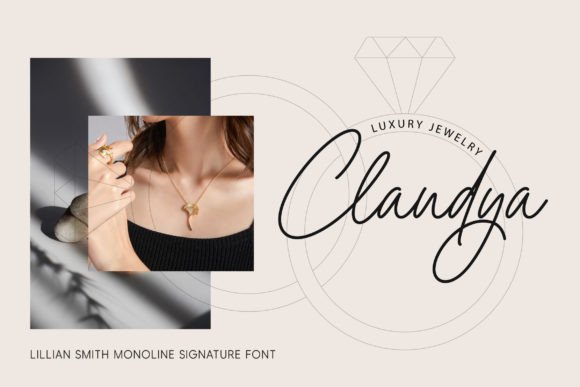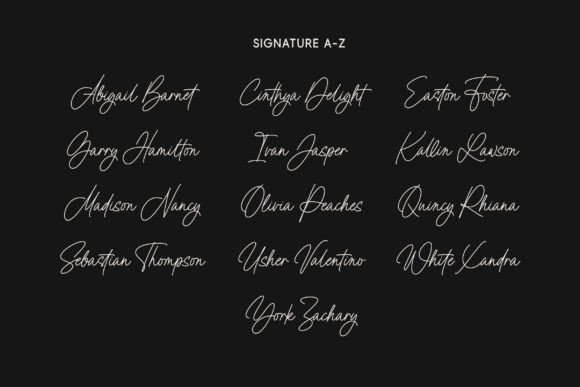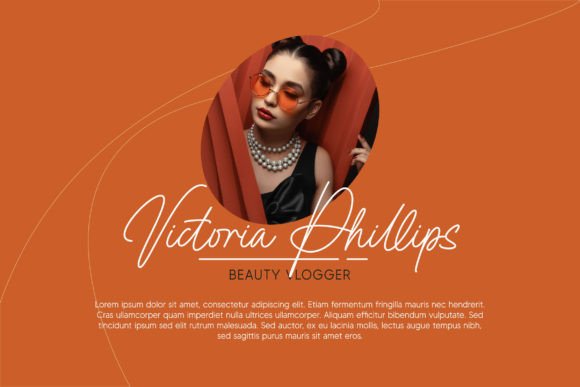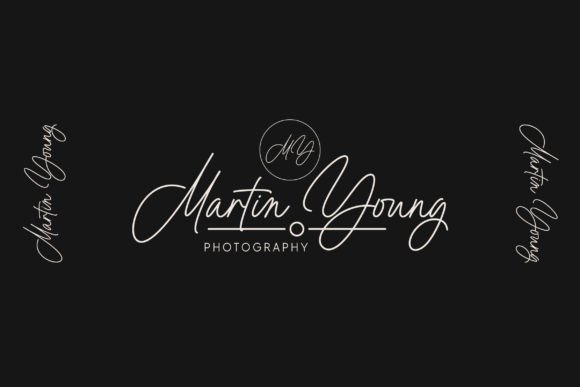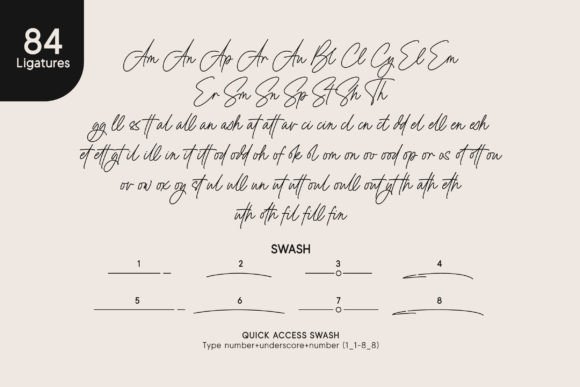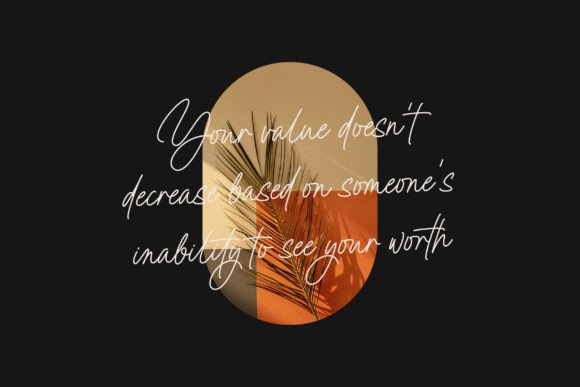
Introduction to Lillian Smith Font
As a designer, there’s nothing quite like the thrill of bringing a creative project to life. It’s the moment when all the elements come together, and you get to see your vision take shape. For me, that moment often starts with the perfect font – one that sets the tone and captures the essence of the project. And that’s where the Lillian Smith Font comes in.
This beautiful monoline signature font is a game-changer for designers looking to add a touch of elegance and sophistication to their work. With 84 ligatures and a soft, flowing impression, it’s the perfect choice for a wide range of design projects – from logos and branding to labels, product packaging, and invitations. And with its transparent background, you can easily place it over any image or design element, giving you complete creative control.
Key Features of Lillian Smith Font
- High-quality design suitable for a creative project: The Lillian Smith Font is designed to provide a unique and elegant look for your project, making it perfect for various design needs.
- Unique characteristics: The Lillian Smith Font features a unique blend of elegance and sophistication, making it perfect for a wide range of creative projects, from wedding invitations to business cards and more.
Honest Review: Lillian Smith Font
As a designer, I’m always on the lookout for high-quality fonts that can elevate my creative projects. The Lillian Smith Font is one such find that I’m excited to share with you.
What works well: ✨ The Lillian Smith Font is a beautifully crafted font that exudes elegance and sophistication. Its smooth, cursive lines make it perfect for a variety of design applications, from wedding invitations to food packaging.
However, I did encounter a few limitations: ⚠️ The font is only available in a limited number of weights, which might limit its versatility in certain design applications.
⚠️ Additionally, the font might not be suitable for projects that require a more modern or edgy feel, as its classic design might come across as too traditional.
Overall, I’m impressed with the Lillian Smith Font and would definitely recommend it for any designer looking for a high-quality, elegant font for their creative project.
- High-quality font with elegant design
- Limited number of weights
- Classic design might not be suitable for modern projects